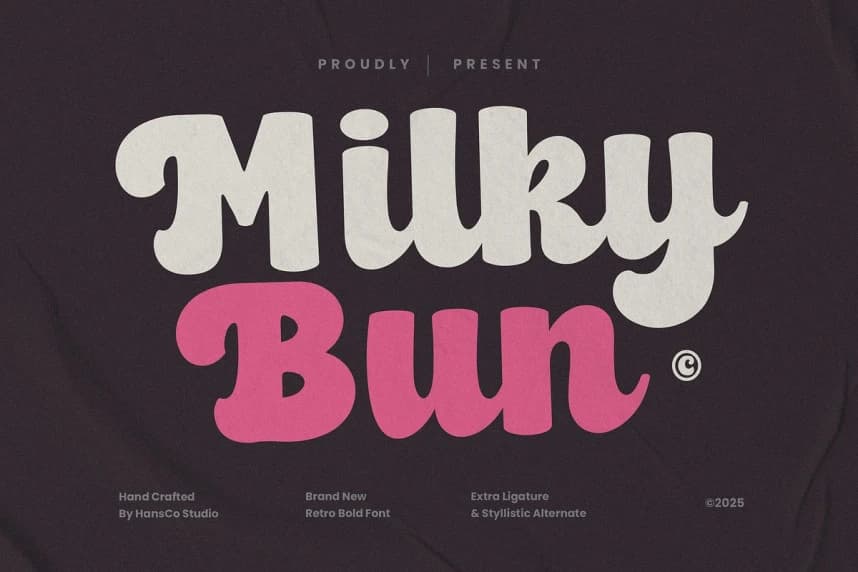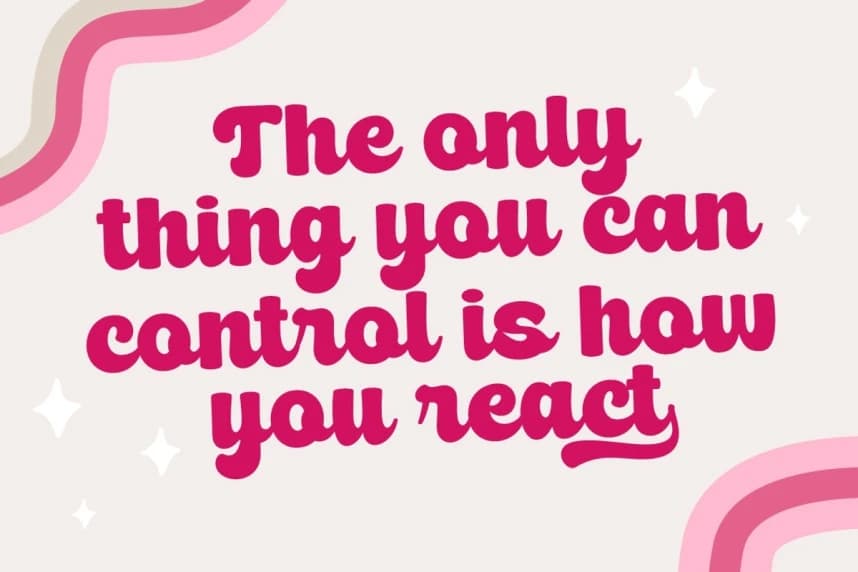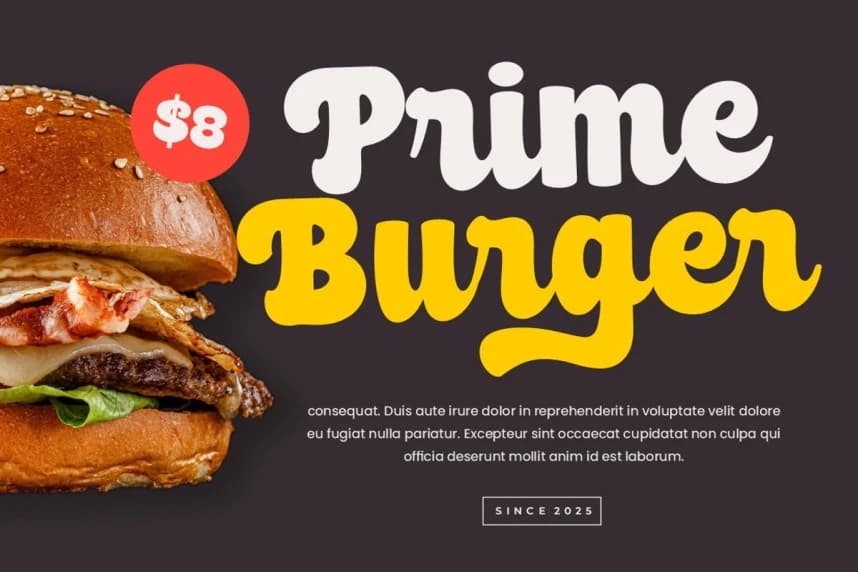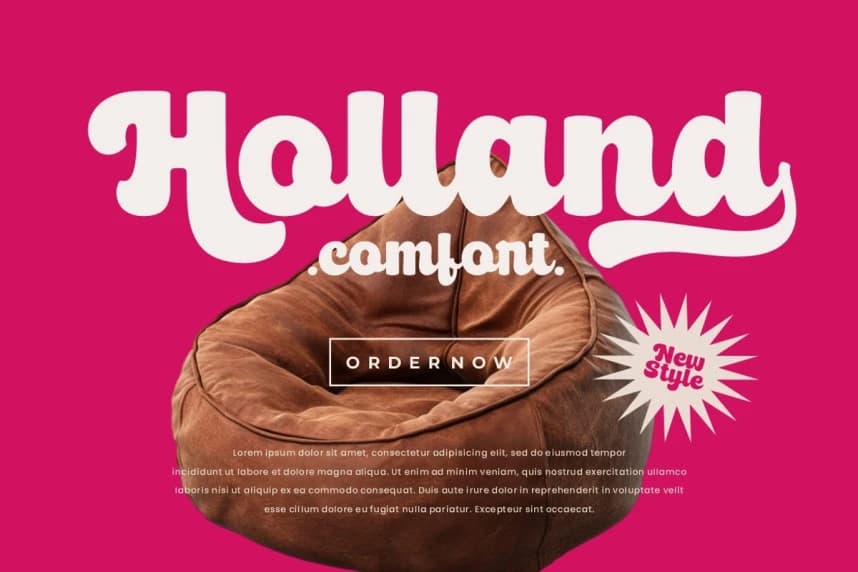
Milky Bun Font
Milky Bun Font is a bold retro font style with rounded touch. Equipped with all complete characters ranging from uppercase letters, lowercase letters, numbers, punctuation marks and multi-lingual support, this font is ready to be used in any project.